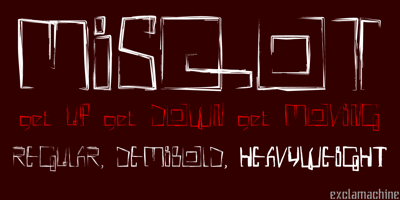
MISQOT
MISQOT font
MISQOT Font Family was designed by Choz Cunningham and published by !Exclamachine. MISQOT contains 3 styles and family package options. MISQOT, with beefy proportions and fine details is a titling font with lots of extras: lowercase, international accents and special characters. The 1.1 release features improved inter-weight metrics, additional characters and 9 newly added essential symbols.